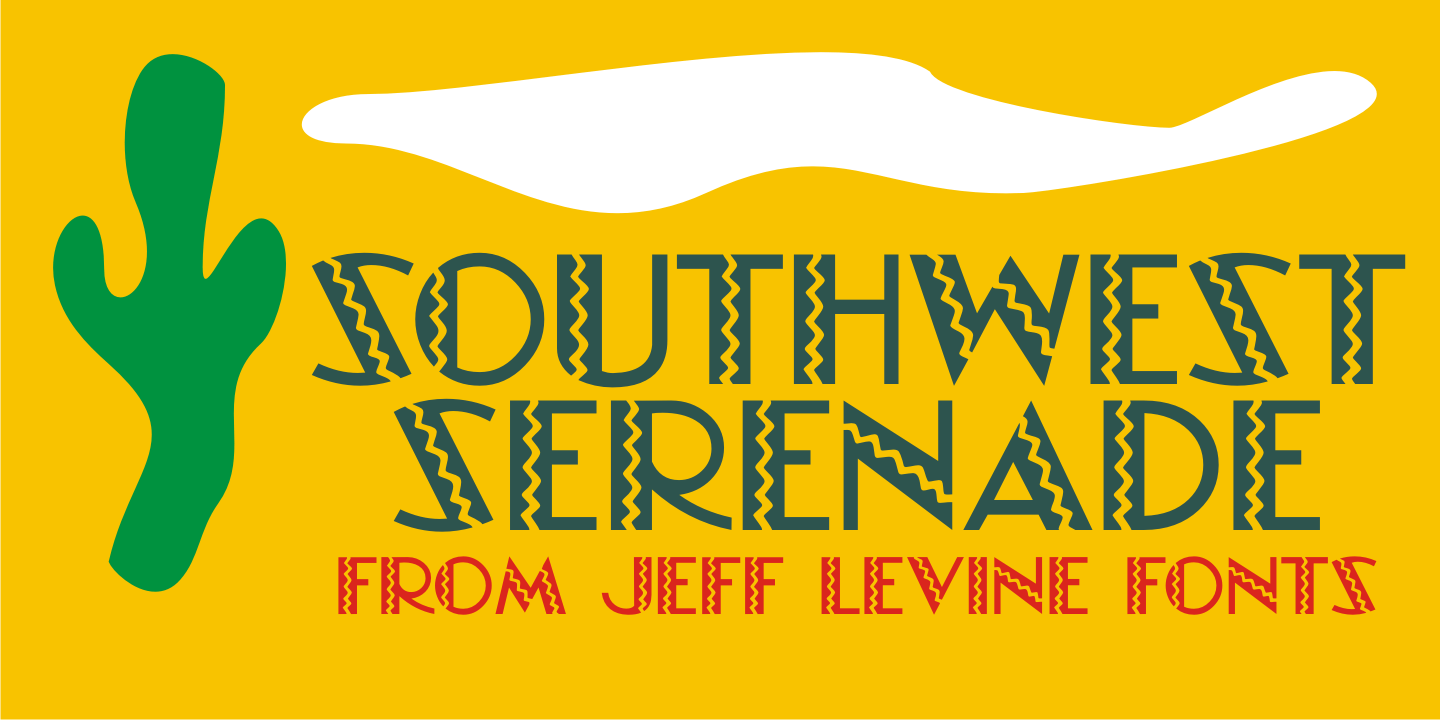
Southwest Serenade
The 1940s-era hand-lettered title on vintage sheet music for the song hit 'Donkey Serenade' had an interpretation of the classic typeface 'Broadway' used in a Mexican/Southwest motif with wavy lines cutting through the letters.
Adapting Playwright JNL (itself, a hand-lettered interpretation of 'Broadway') to this style, the festive design is now a digital typeface called Southwest Serenade JNL.
Southwest Serenade Regular by Jeff Levine Fonts